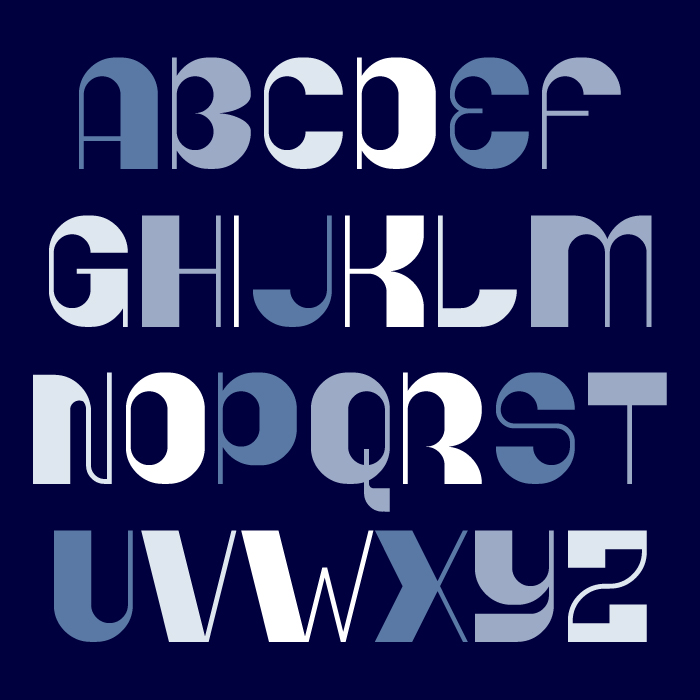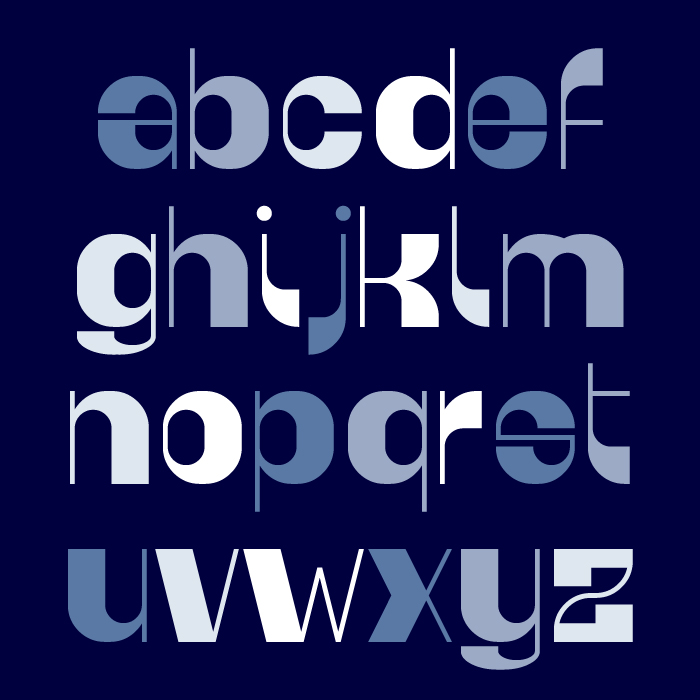
Great retro look!
Congratulations! FontStruct Staff have deemed your FontStruction worthy of special mention. “greenway” is now a Top Pick.
Hey, hey, very nice samples & what a charming font! This is a beautiful and expressive fontstruction.
Nice retro font with great contrast between the thin and thick strokes. 10/10
A font that can wake people's eyes, samples are perfect. Great aesthetics through different line thicknesses and contrasting shapes. Congratulations on the TP :)